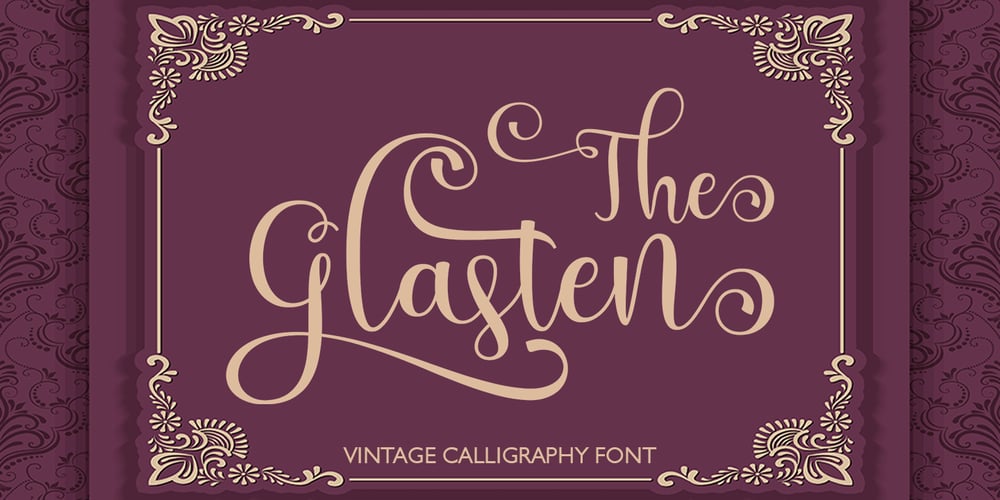
The Glasten Font Family was designed by Teuku Bustami and published by TM Type. The Glasten contains 1 styles and family package options. The Glasten is a distinct and graceful script font. Fall for its ravishing style and use it to create gorgeous designs. This font is PUA encoded which means you can access all glyphs and swashes with ease!